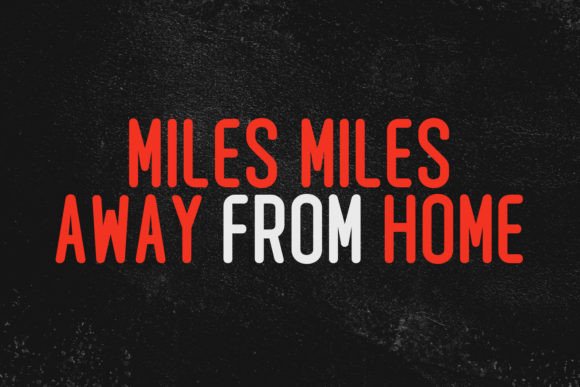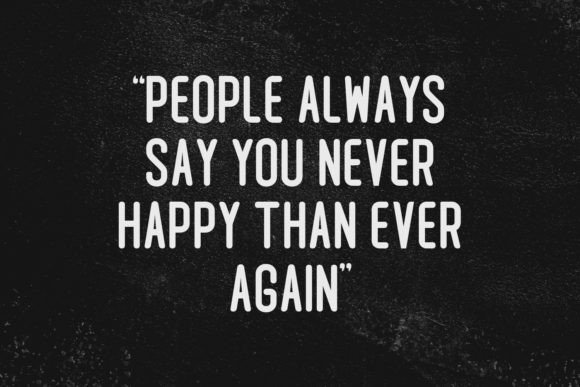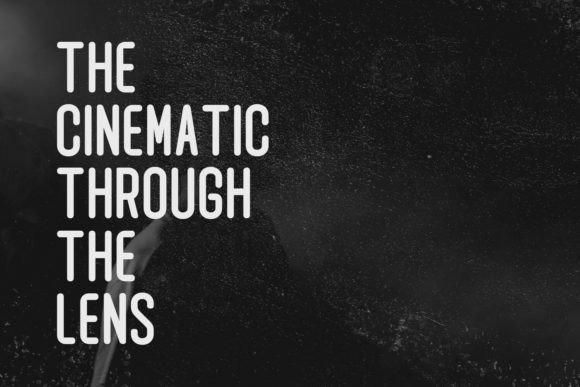
Introduction to Hirosto Font
Hirosto Display Font is a stylish and eye-catching typeface.
It’s perfect for making titles and headlines stand out The letters have a bold and modern look, making it great for posters, logos, and advertisements.
Why Choose Hirosto Font?
Hirosto Font offers exceptional quality and versatility, making it a valuable addition to your design toolkit. Whether you’re creating for personal projects or commercial use, Hirosto Font delivers professional results.